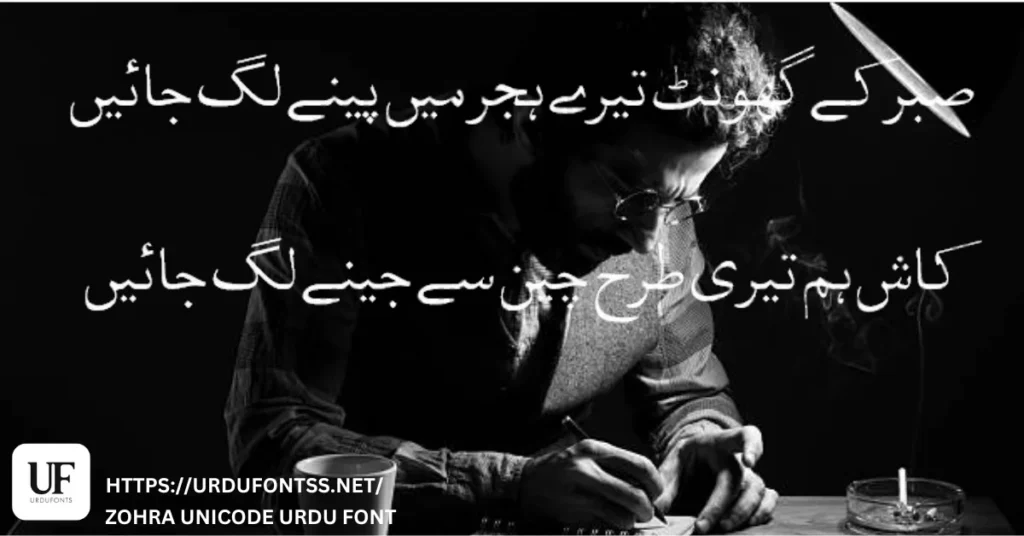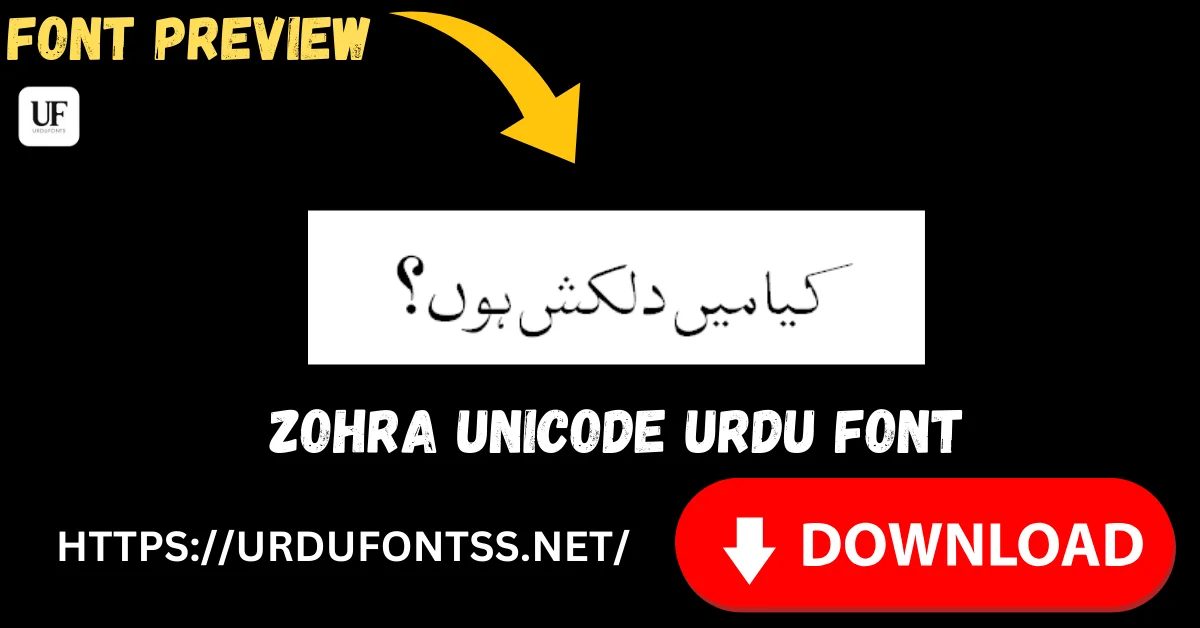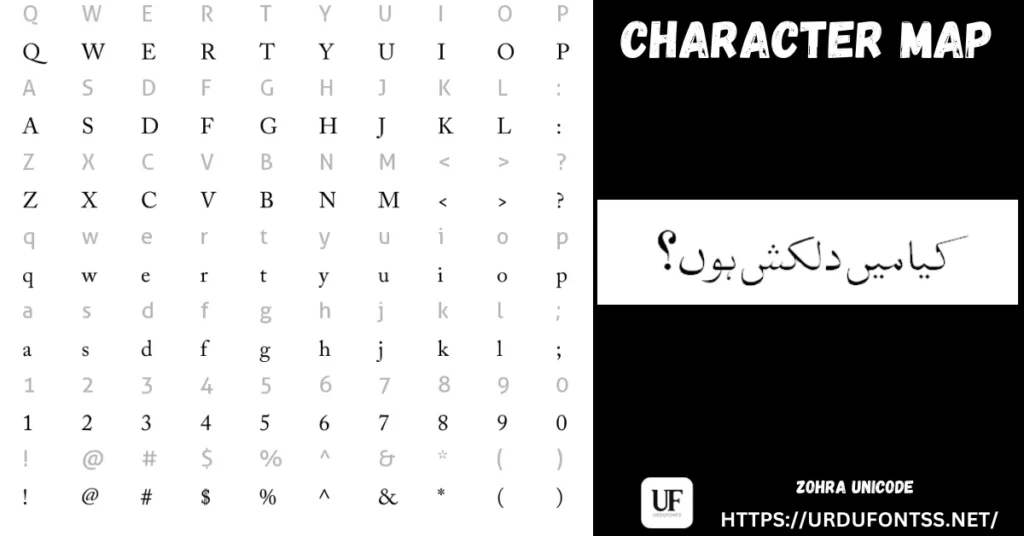
Zohra Unicode is a clean, standard Urdu font for everyday typing. Download the TTF free below and install it on Windows, Mac or Android. It is a Unicode TrueType font made for clear, professional Urdu text in documents and on screen.
Not to be confused with Zohar Unicode — different font, different file. Zohra Unicode and Zohar Unicode are two separate fonts with separate downloads. If you want the other font, see Zohar Unicode Free Urdu Font Download (TTF).
What Makes Zohra Unicode Different
Zohra Unicode is built for steady, everyday Urdu typing rather than decoration. Its letterforms keep a natural Urdu flow with even spacing, so paragraphs stay aligned and easy to read. The clean, standard script suits official and academic documents as well as ordinary notes. At approximately 68.5 KB it is lightweight, and Unicode support means the same text displays correctly in modern Word, web and mobile apps instead of breaking into boxes or disconnected letters.
Best Uses
- Everyday Urdu typing and notes: type notes, messages and personal documents in clear Urdu.
- Official and academic documents: prepare letters, applications, assignments and research documents in a professional style.
- WordPress and website body text: publish Urdu posts and pages that stay readable on desktop and mobile.
- School assignments and presentations: set homework, handouts and slides in clean Urdu.
- Social media captions and quotes: share Urdu captions and quotes that are easy to read at a glance.
- Printed handouts and worksheets: print worksheets, notices and study material with consistent spacing.
Zohra Unicode vs Similar Fonts
Not to be confused with Zohar Unicode — different font, different file. Zohra Unicode and Zohar Unicode have similar names but are separate fonts. Download only the file you need: Zohar Unicode Free Urdu Font Download (TTF).
| Font | Style | Best for |
|---|---|---|
| Zohra Unicode | Clean, standard Urdu script | Everyday typing and professional documents |
| Zohar Unicode | Modern and clean | Readable documents, graphics and web text |
| Jameel Noori Nastaleeq | Elegant Nastaleeq | Print and websites with calligraphic style |
| Decorative Urdu fonts | Decorative | Titles and posters |
If you want clear body text and professional documents, choose Zohra Unicode. If you want a decorative title or a calligraphic Nastaleeq look, choose a decorative or Nastaleeq font instead.
What is Zohra Unicode?
Zohra Unicode is a clean, standard Urdu font in TrueType (TTF) format, made for everyday Urdu typing and professional documents.
Zohra Unicode is a clean, standard Urdu font that keeps everyday typing clear and professional. Its Unicode TTF format makes it a practical choice for documents, websites and printed material. If you need a dependable font for Urdu typing, it is worth trying. Download it below and test it with your own text. For more fonts, see the Free Urdu Fonts collection.